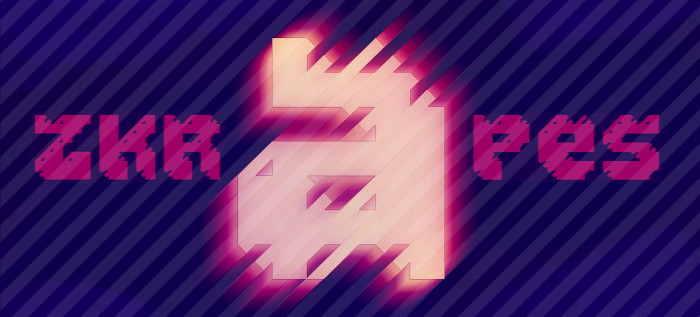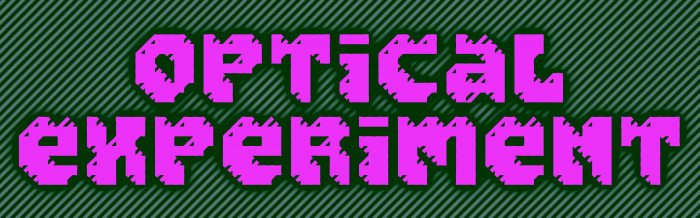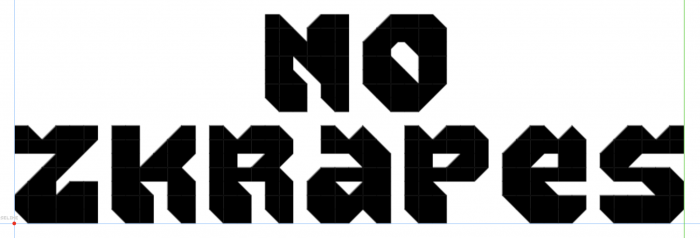
Simple scrape optical experiment with eroded characters. You can find a lowercase "c" in the "¢" glyph and "ff" and "tt" ligatures placed in the "fi", "ff" and "fl", if you need any of them. Suggestions to improve the font are welcome. Hope you like them.
nice erosion effect! curious what the glyphs would look like without the diagonal lines though, if you don't mind?
Quite the deceptively intricate optical illusion~ 10/10
@Gr4ftY: Thank you! I've made this sample to satisfy your curiosity to see "zkrapes" without scrapes. Hope you like it...